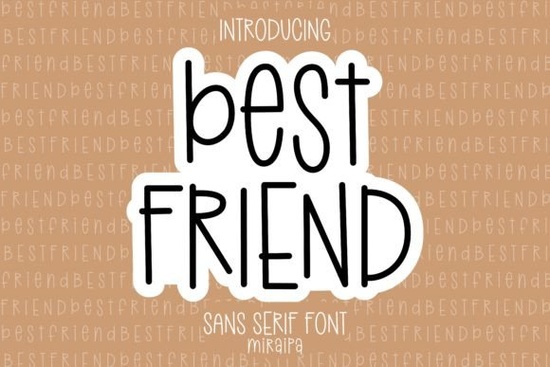
Looking for a typeface that feels warm, friendly, and easy to work with? The Best Friend Font is a cute and playful sans serif designed for projects where you want to keep things lighthearted. It has a whimsical, slightly quirky personality that works well for everything from holiday invitations to social media graphics. If you regularly work on DIY designs, print-on-demand products, or client projects that call for a friendly tone, this font is worth a closer look.
What kind of projects does Best Friend Font work well for?
One of the biggest strengths of this typeface is its versatility. Because it sits in that sweet spot between playful and readable, you can use it across a wide range of creative work. Here are some popular uses:
- Holiday designs – Easter cards, Halloween party invitations, Christmas tags, and Fall-themed prints all benefit from a warm, approachable font.
- Back-to-school projects – Think bulletin boards, classroom labels, teacher planner covers, and student name tags.
- Wedding and party stationery – Save-the-dates, menu cards, and welcome signs with a casual, fun vibe.
- Children's designs – Book covers, birthday invitations, nursery wall art, and kids' clothing graphics.
- Digital content – Blog headers, Pinterest pins, Instagram stories, and YouTube thumbnails.
- Print-on-demand products – Mugs, tote bags, stickers, and t-shirt designs that need a cheerful feel.
If you keep a diary planner or bullet journal, this font also makes a lovely choice for headers, section dividers, and decorative labels. Its sans serif structure keeps things clean while the playful curves add personality.
How does it compare to other playful sans serif fonts?
There are plenty of friendly typefaces out there, so it helps to understand where Best Friend Font fits among them. If you prefer something more structured and professional, Poppins is a geometric sans serif that reads clearly at any size but has a more neutral, corporate feel. On the other hand, if you want something with more decorative flair, Surfume brings a bolder, more stylized look that suits beach-themed or retro designs.
Best Friend sits right in the middle. It's not as formal as a standard sans serif, and it's not as decorative as a display font. That balance is exactly what makes it useful for so many different types of projects.
Is this font a good choice for small businesses?
Absolutely. Small business owners often need branding materials that feel approachable without looking unprofessional. A café, a children's boutique, a bakery, or a pet grooming service could all use a typeface like this for logos, menus, packaging, and social media posts. The key is that it communicates friendliness without sacrificing legibility.
For print-on-demand sellers, this font is especially practical. Many POD platforms have guidelines about font readability, and a clean sans serif with a playful edge tends to perform well across product categories. You can pair it with simple illustrations or bold graphics and it won't compete for attention.
What should you pair it with?
When working with any playful font, pairing matters. A few tips to keep your layouts balanced:
- Pair it with a simple body font. Use Best Friend for headlines and a clean sans serif like Poppins for longer text blocks.
- Keep your color palette light and warm. Pastels, soft neutrals, and warm tones complement the font's friendly character.
- Don't overuse it. Using a playful font for everything on a page can feel cluttered. Let it shine in key spots like titles or short phrases.
- Test at different sizes. Some playful fonts lose readability at small sizes, so always preview your design at the size it will be printed or displayed.
If you're building out a collection of versatile sans serif fonts, adding a few options at different personality levels gives you flexibility across client projects and personal work. The Best Friend Font is a solid pick for that playful, approachable slot in your toolkit.